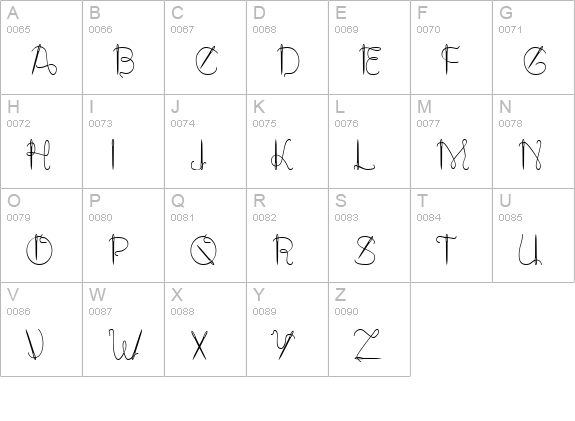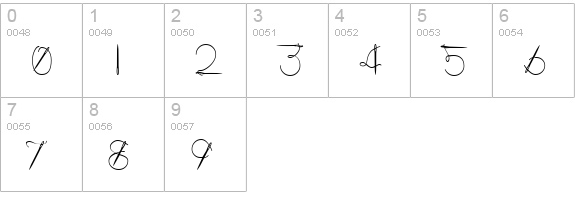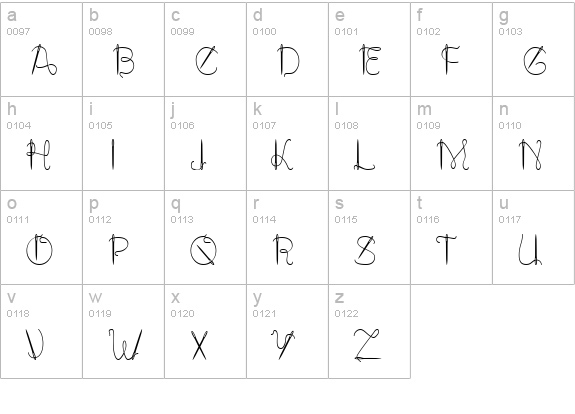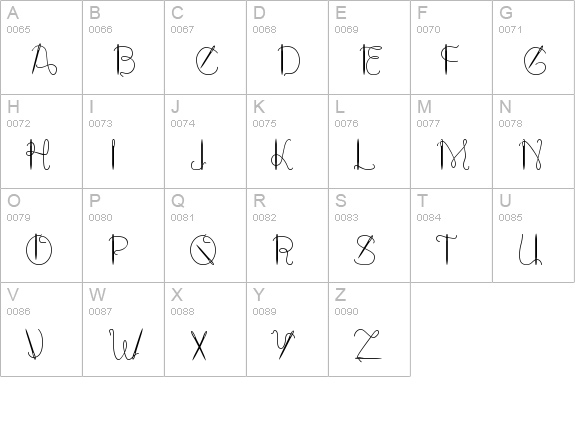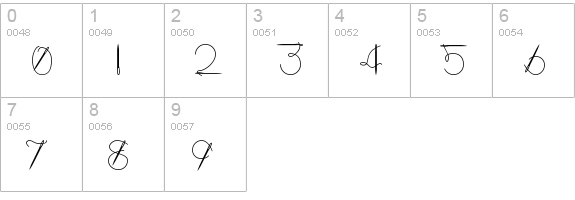
NeedALilly Font Details
NeedALilly font is a beautiful and elegant typeface that combines modern sophistication with a classic touch. Its delicate curves and stylish flourishes make it perfect for a wide range of design projects, from invitations to branding to social media graphics. The font exudes a sense of grace and charm, adding a touch of luxury to any visual composition. What sets NeedALilly font apart is not just its stunning aesthetic appeal, but also its accessibility. This exquisite font is freely available to download at FontsMarket.com, making it easy for designers and creatives to add a touch of elegance to their work without breaking the bank. Whether you're working on a personal project or a client commission, NeedALilly font is sure to elevate your designs and leave a lasting impression. Embrace the beauty and versatility of NeedALilly font today, and let its timeless elegance enhance your creative endeavors. Download it for free at FontsMarket.com and discover the endless possibilities this exquisite typeface has to offer.